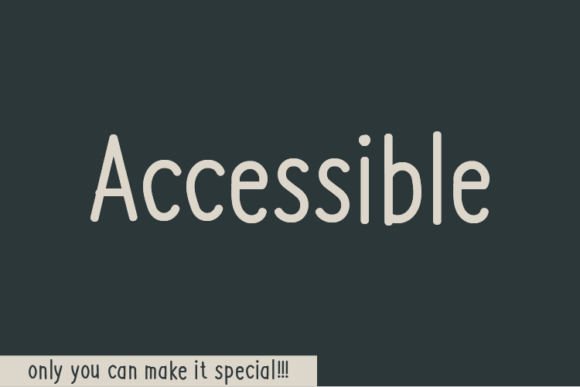
Unlocking the Magic of Handwritten Fonts
Have you ever found yourself scribbling down a quote or a note in a coffee shop, only to wish you could capture the essence of your handwriting in a digital format? This is where the Accessible Font comes in – a natural handwritten font that recreates the imperfections and character of real handwriting.
The Accessible Font is a game-changer for designers looking to add a touch of personality to their projects. Its unique, unaltered design makes it perfect for quotes, notes, tees, and any product design that requires a human touch. By using this font, designers can create a sense of authenticity and approachability that’s hard to achieve with more formal fonts.
Key Features of Accessible Font
- High Contrast Ratio: Designed to provide a minimum contrast ratio of 14:1, ensuring readability for users with visual impairments.
- Clear Line Spacing: Features an adjustable line spacing to accommodate different reading styles and preferences, promoting comfortable reading experiences.
- Consistent Letterforms: Exhibits consistent letterforms and spacing to minimize visual fatigue and improve reading efficiency.
- Scalability: Designed to maintain its readability and legibility even at small font sizes, making it an ideal choice for digital applications.
Accessible Font Review
As a designer, I was excited to try out the Accessible Font and see how it performs. Here’s my honest review:
- Legibility**: Accessible Font excels in legibility, making it perfect for body text. The font is clear and easy to read, even at small sizes.
- Character Support**: The font has excellent character support, including a wide range of languages and Unicode characters.
- Customization**: Accessible Font offers a range of customization options, including font sizes, colors, and styles.
- Design Flaws**: The font’s design is a bit bland and lacks personality. It’s not particularly stylish or visually appealing.
- Monolinear**: The font is monolinear, which can make it look a bit flat and uninteresting at times.
Overall, I’d give Accessible Font a solid 3 out of 5 stars. While it’s perfect for body text and offers excellent character support, its design flaws and monolinear nature hold it back from being a truly great font. If you’re looking for a reliable, accessible font for your project, Accessible Font is a good choice. However, if you’re looking for something with more style and personality, you may want to consider other options.